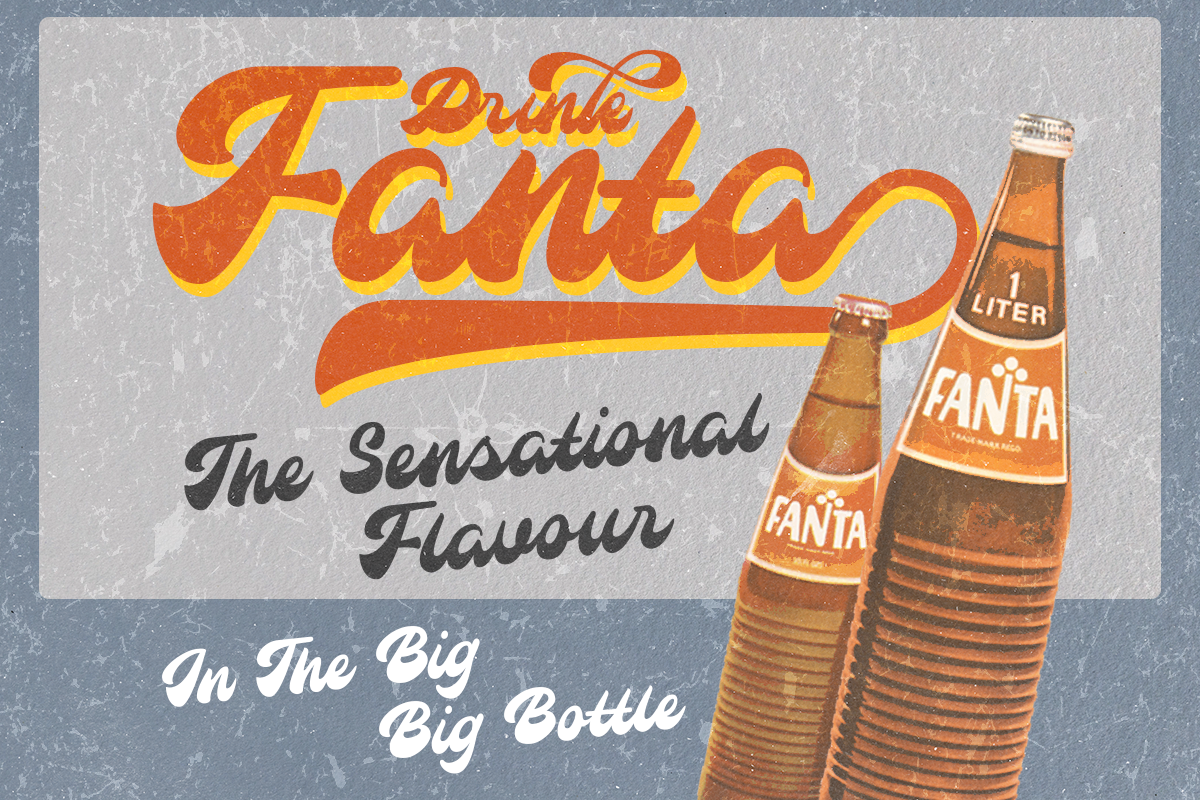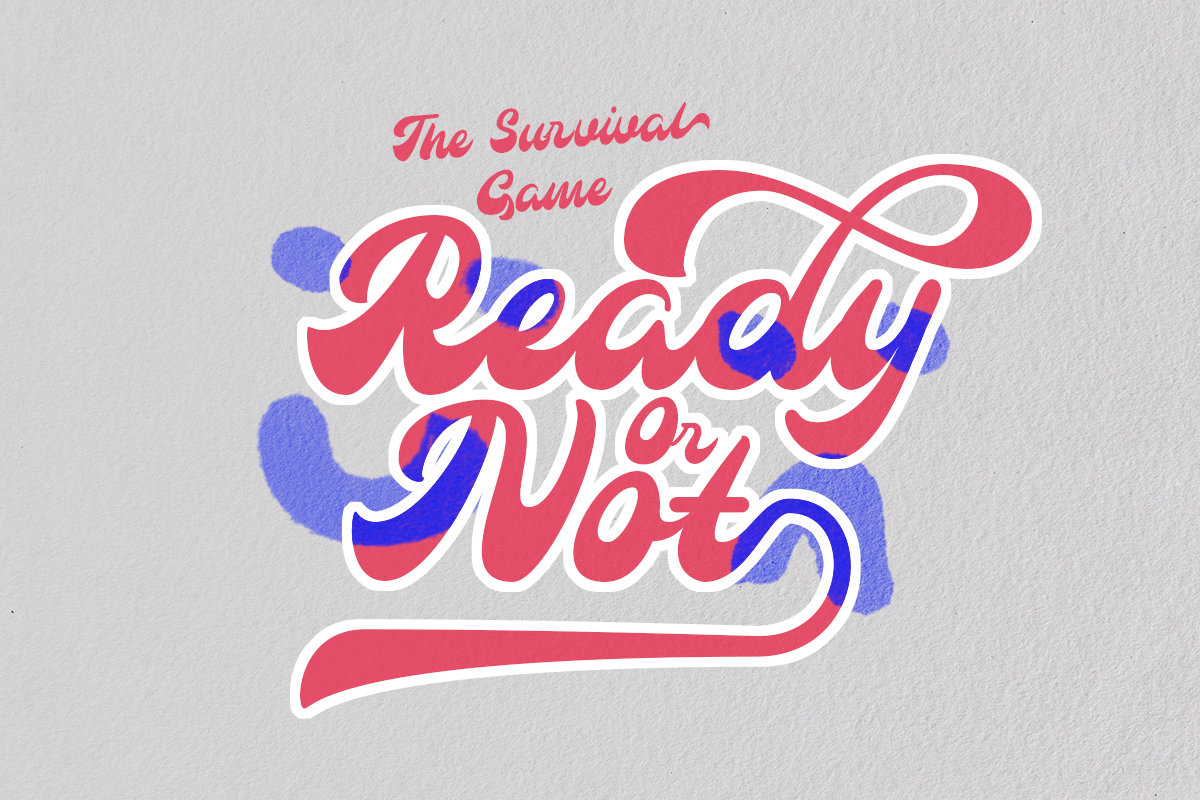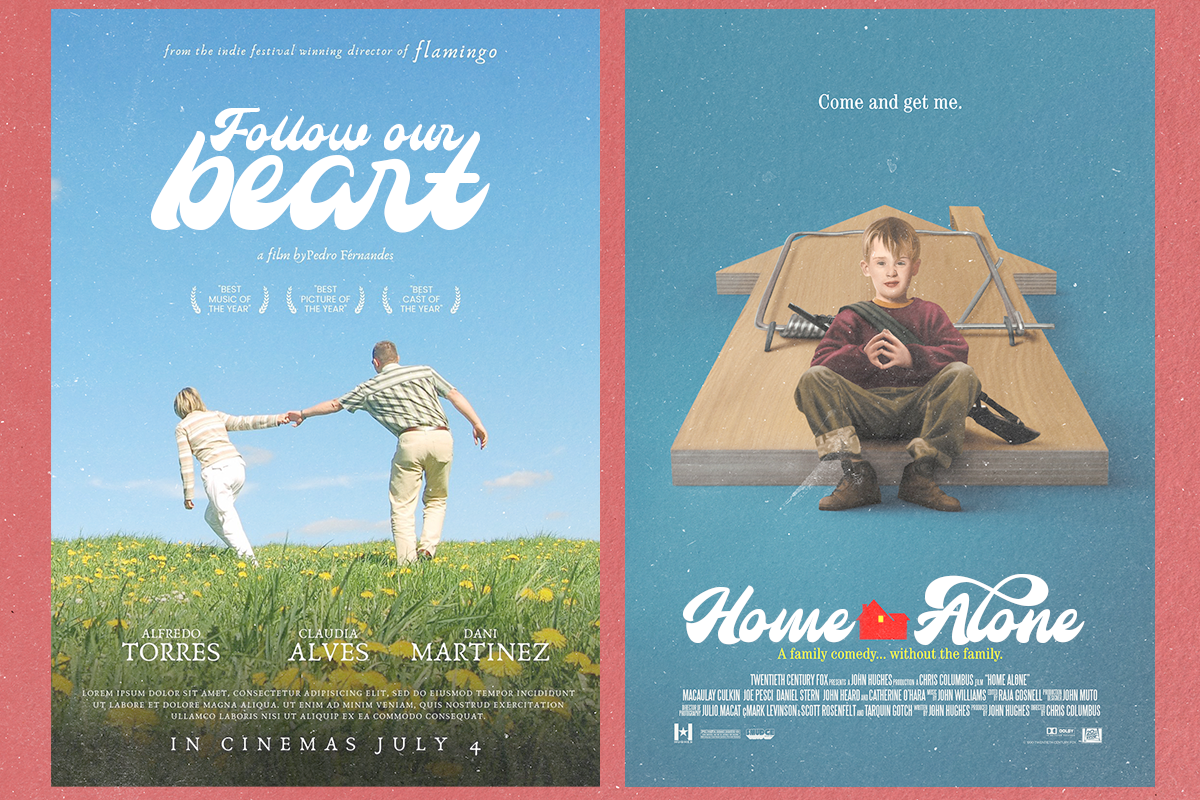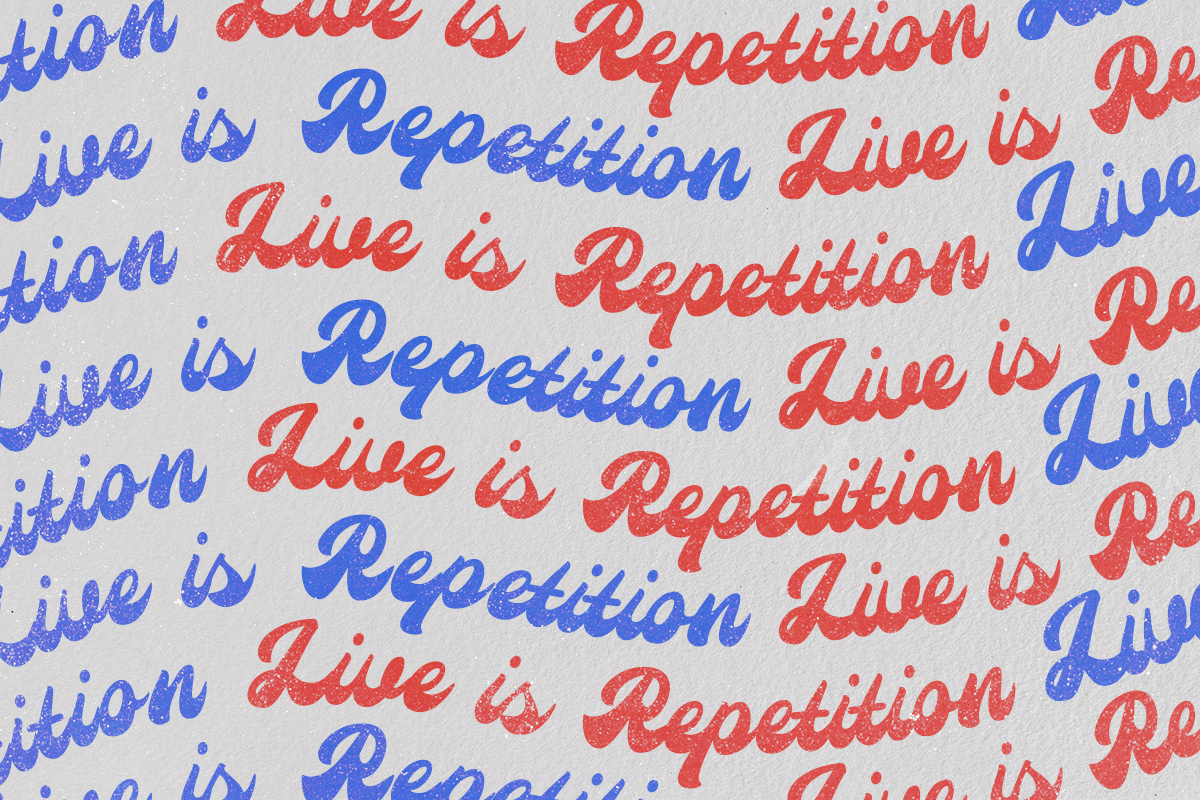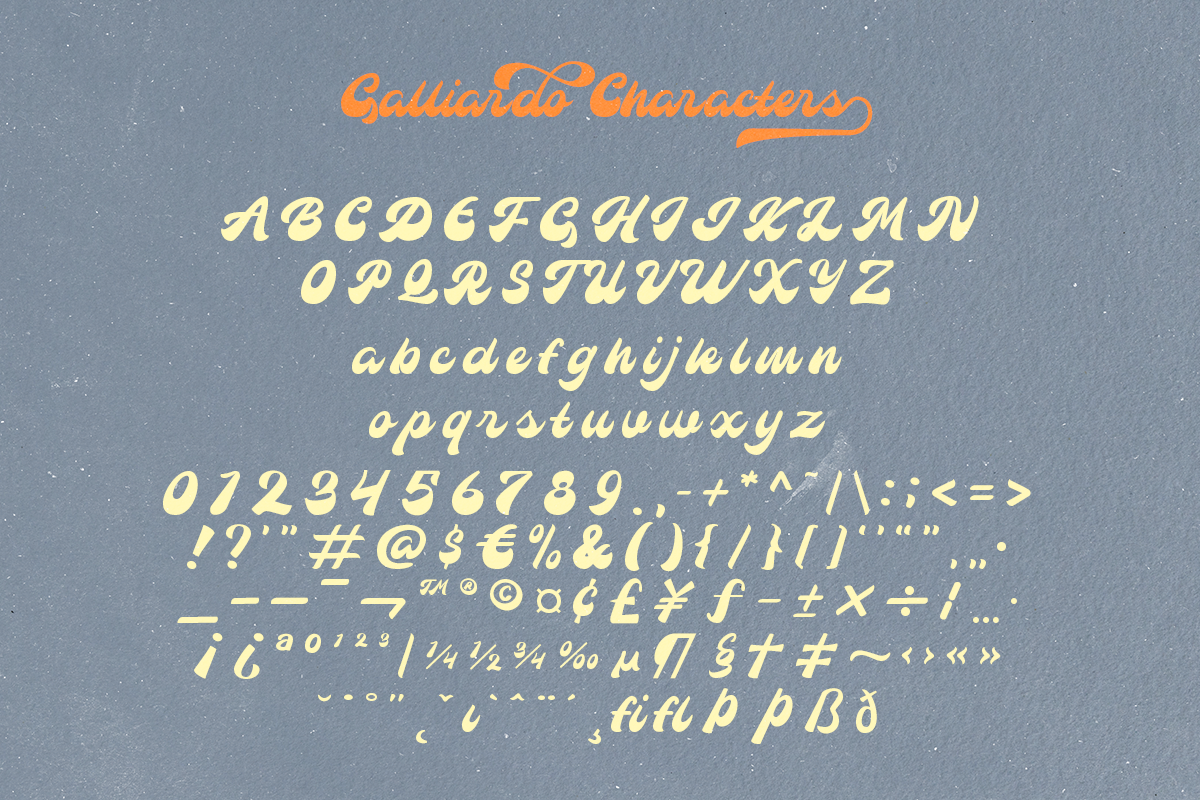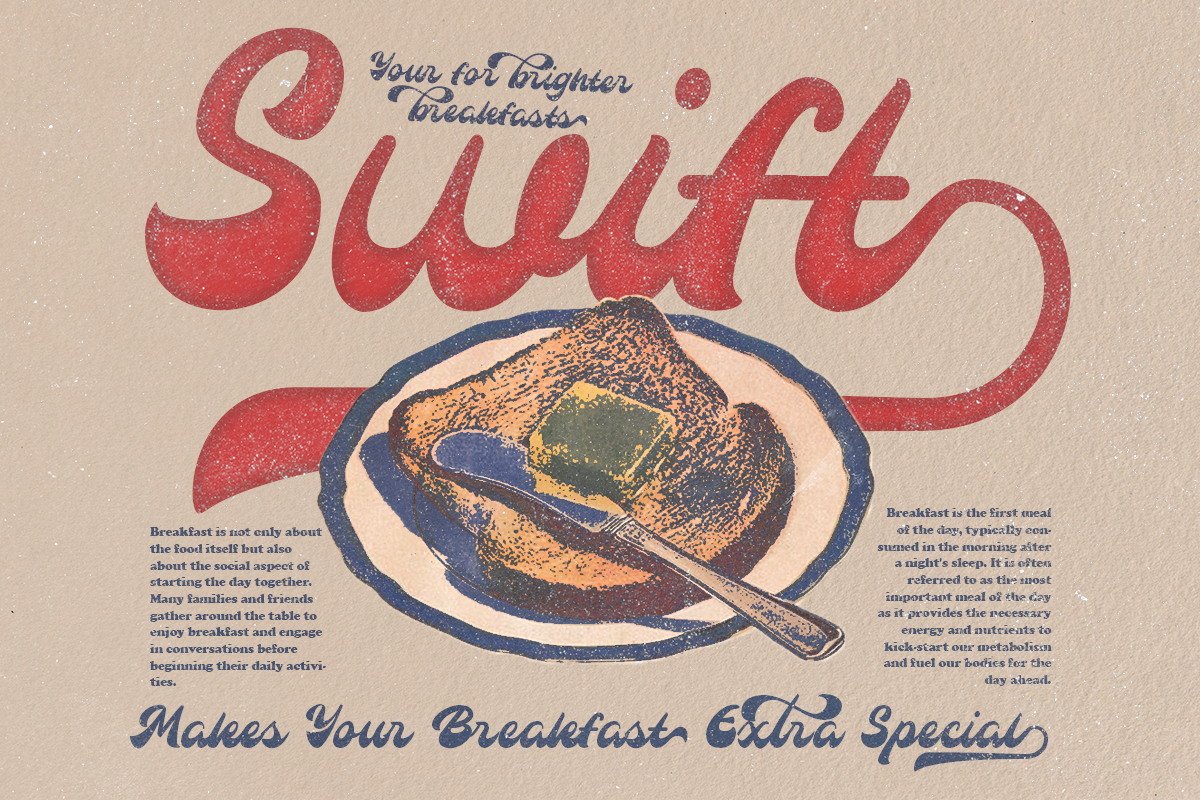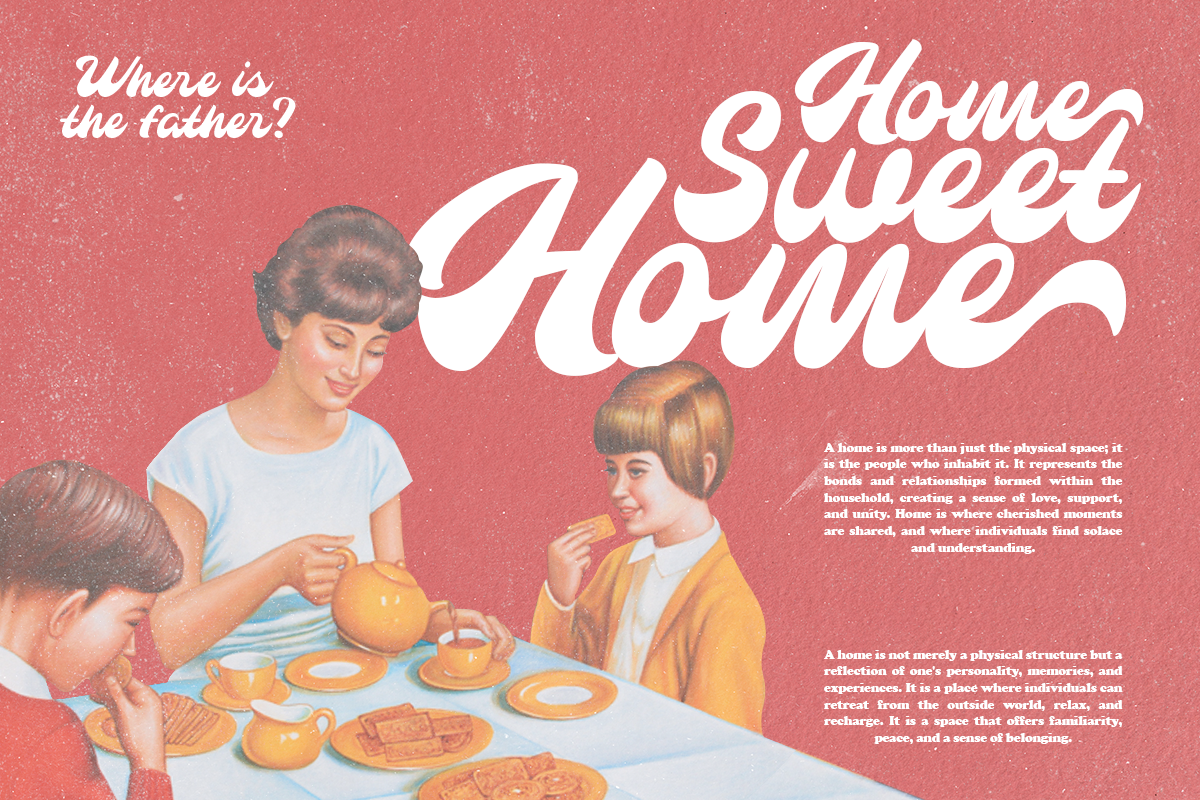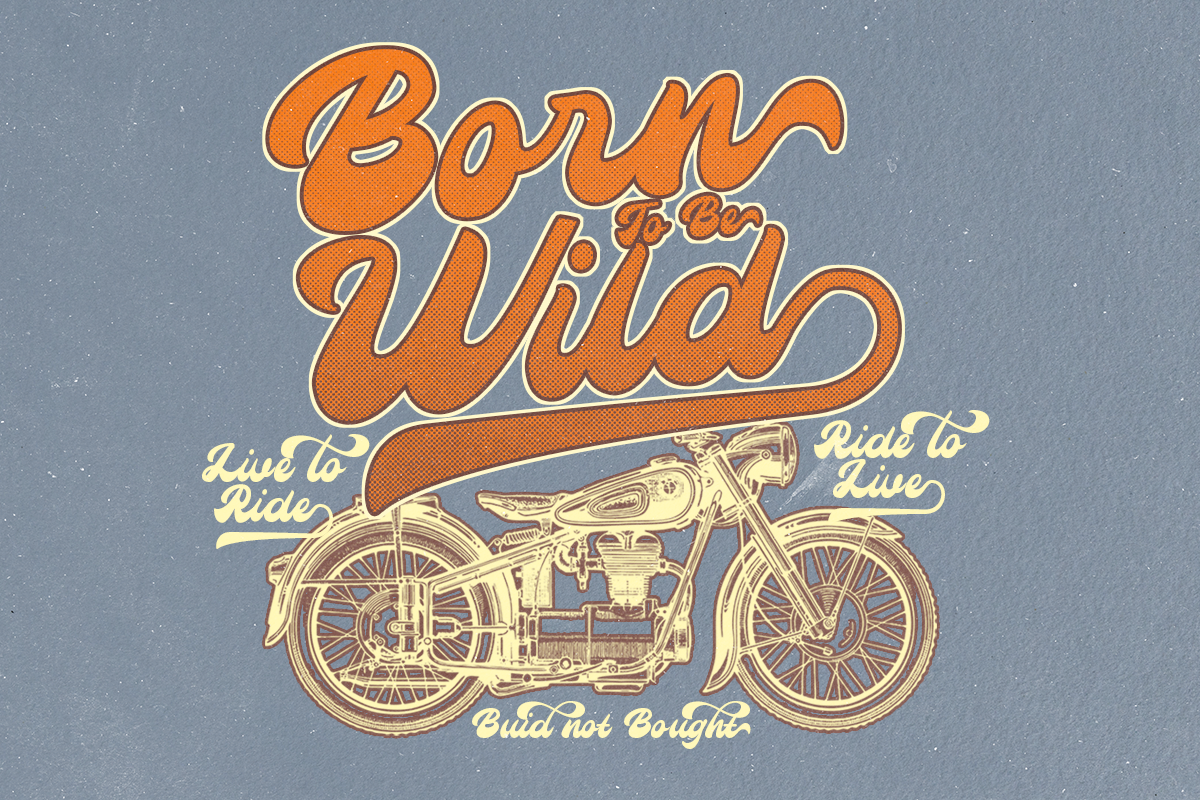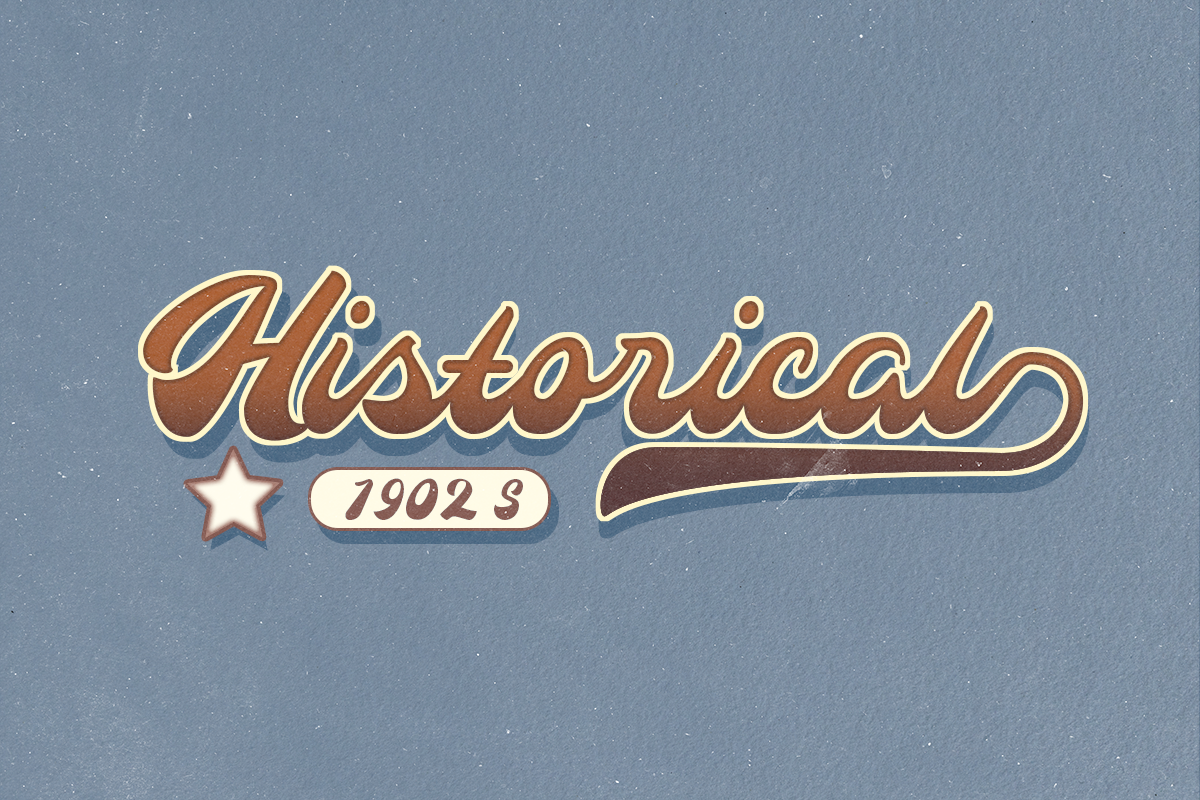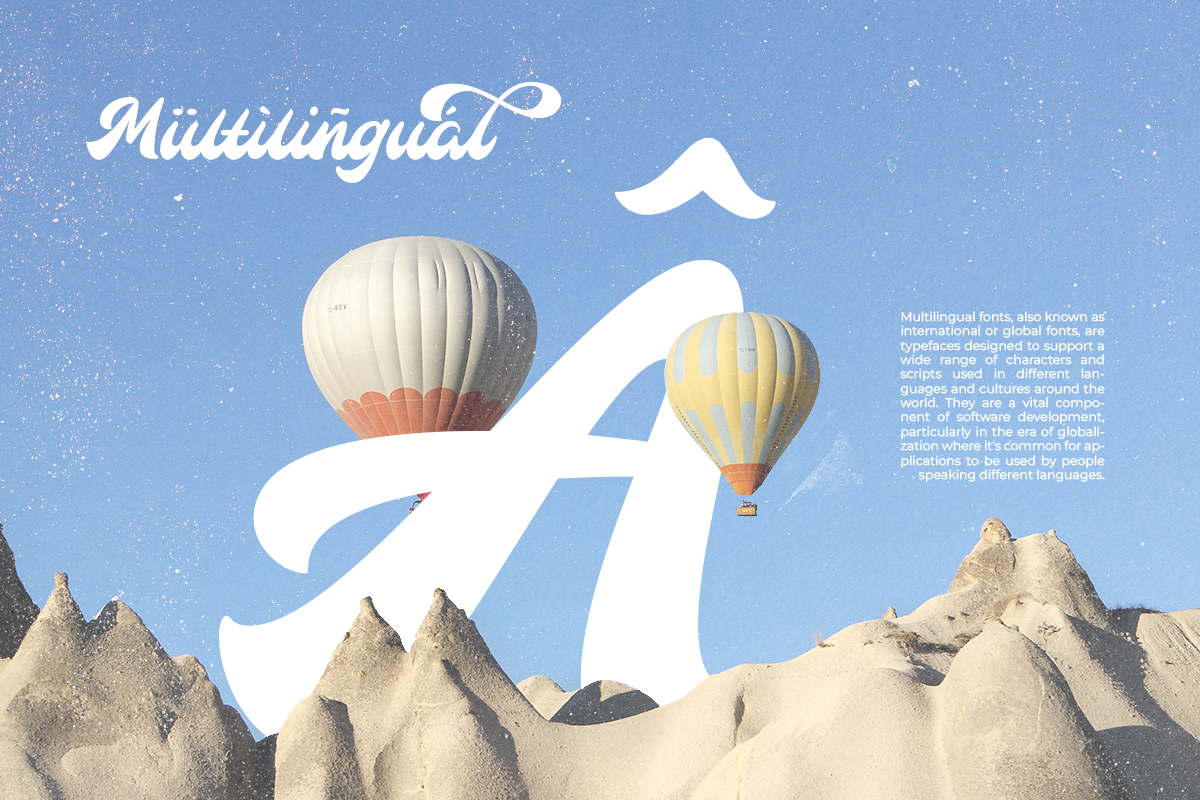
Galliardo - Y2K Script
Say hello to GALLIARDO - A versatile script that combines the chic stylishness of the art deco period with the retro feel of the ultra-cool 70s :)
Galliardo - A versatile script font that embodies classic and vintage-inspired typeface and adds a touch of timeless charm to any design. Whether you're working on branding projects, signage, or packaging, and the other various formal forms such as invitations, labels, logos, or any type of advertising purpose this font is your go-to choice for creating a memorable and distinct visual experience.
Complete alternate and ligature
Unique letterforms
Give your design projects that fun, playful edge with GALLIARDO!